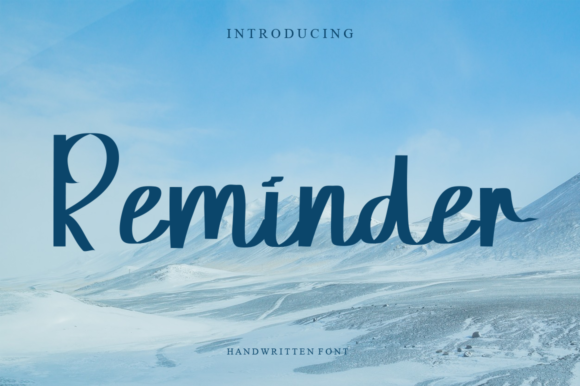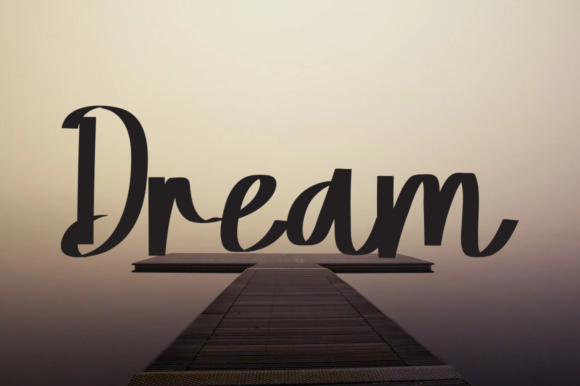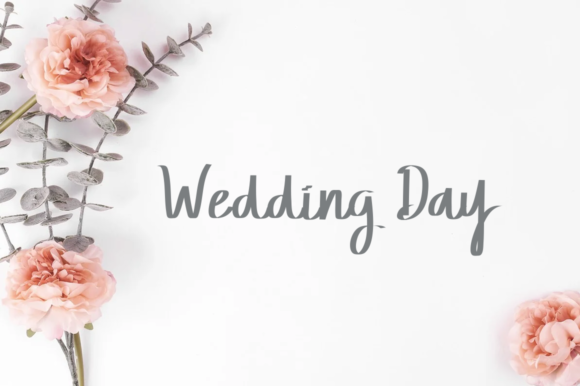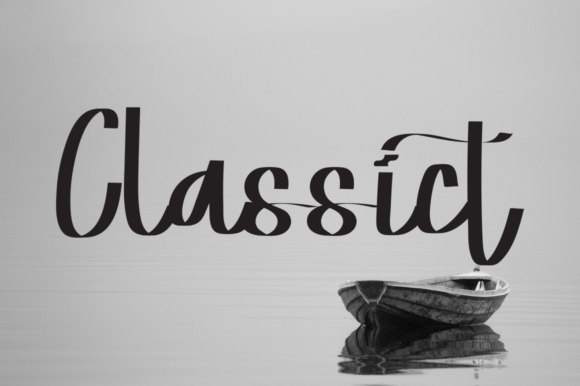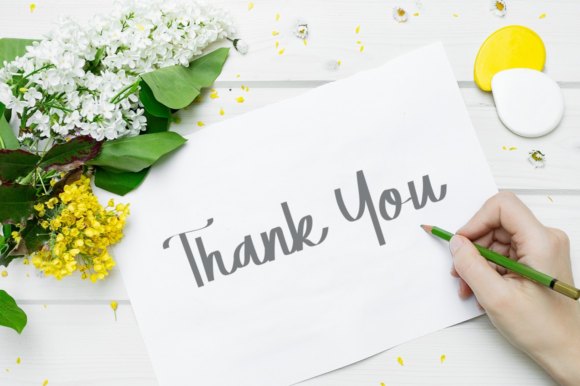
Reminder Font
About Reminder Font
Reminder is a dainty, playful and cursive handwritten font. This gentle font will look gorgeous on a variety of design ideas. It will add a joyful and romantic touch to each of your projects!